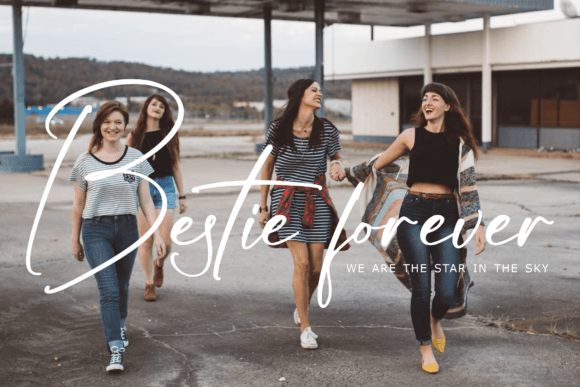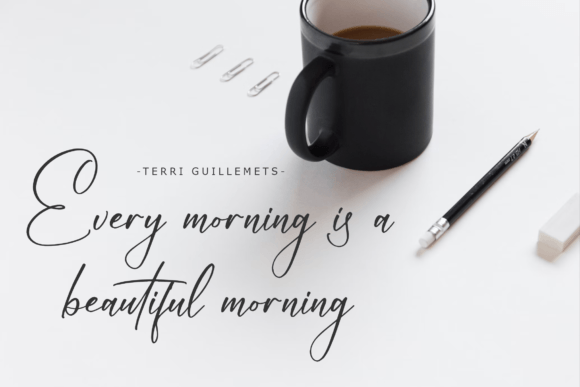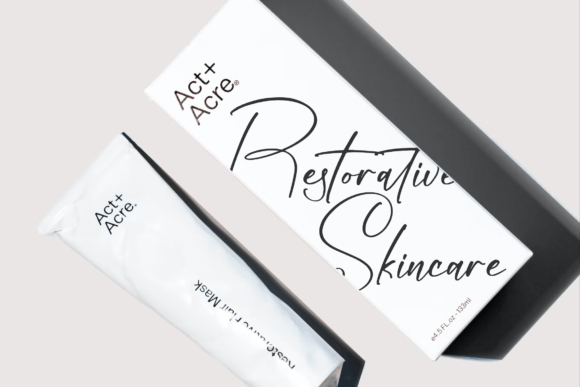
Introduction to Alnathasia Font
Alnathasia – Modern Handwritten Font, from Letterfabric Studio, suitable for any projects such as logos, branding projects, homeware designs, product packaging, mugs, quotes, posters, shopping bags, t-shirts, book covers, name cards, invitation cards, greeting cards, label, photography, watermark, special events, and all your other lovely projects that need a beautiful script taste.
Key Features of Alnathasia Font
Why Choose Alnathasia Font?
Alnathasia Font offers exceptional quality and versatility, making it a valuable addition to your design toolkit. Whether you’re creating for personal projects or commercial use, Alnathasia Font delivers professional results.